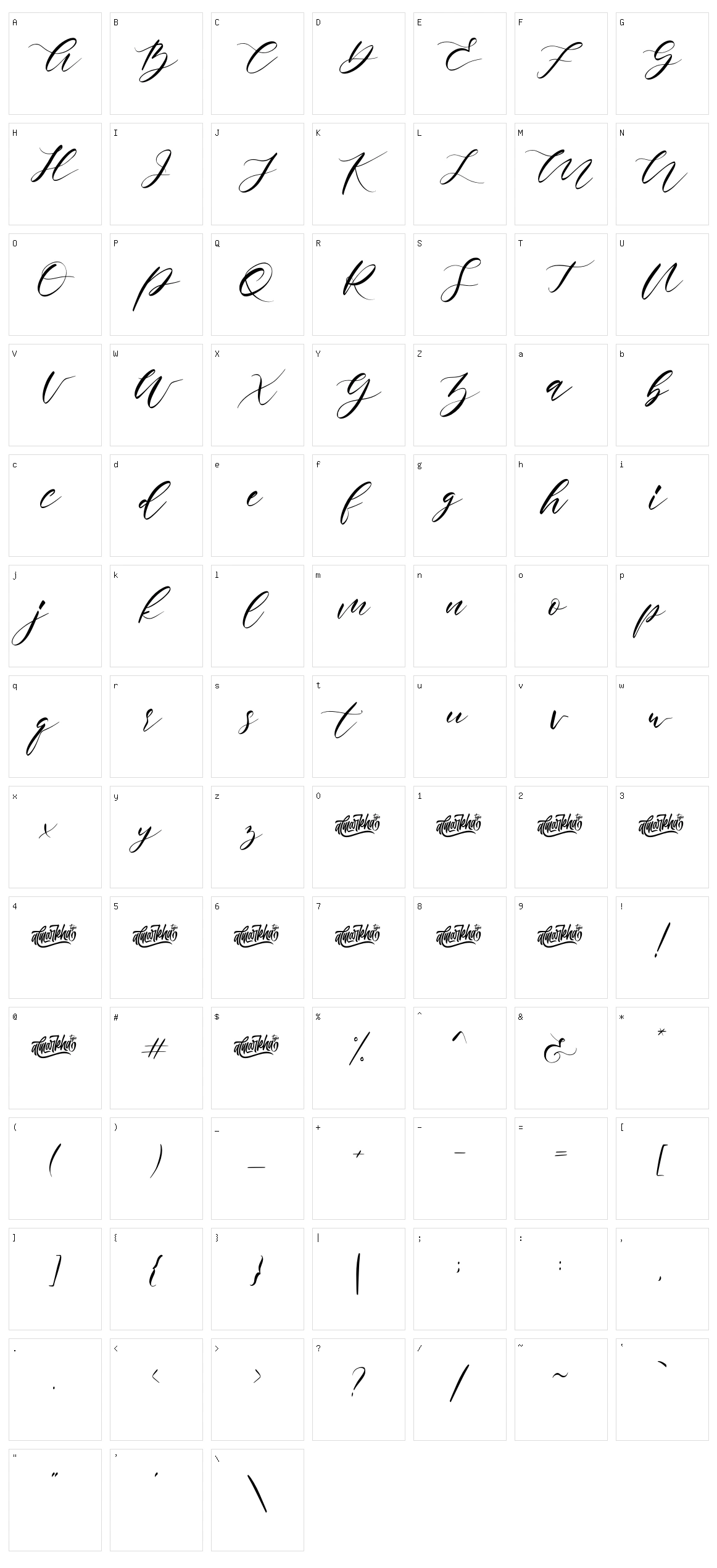
The free font Rosadetta is carefully designed by Almarkhatype, showcasing a thoughtful balance of creativity and usability and falls under the Script font style. When you download the ZIP file, it contains only 469.39 KB of font files, making it lightweight and quick to download. Please review the license details below to understand permitted usage and distribution rights. If license information is not available, we recommend using this font for personal projects only or contacting the author directly for commercial usage permissions.
Rosadetta Font By Almarkhatype Studio